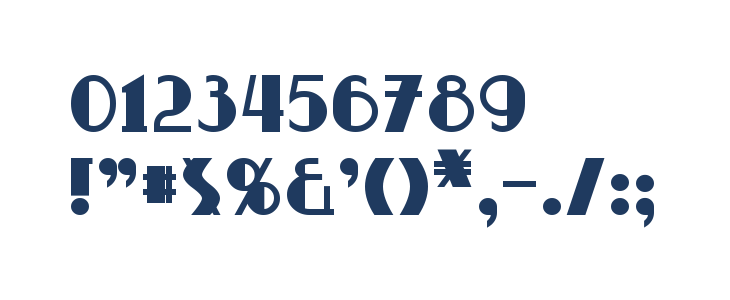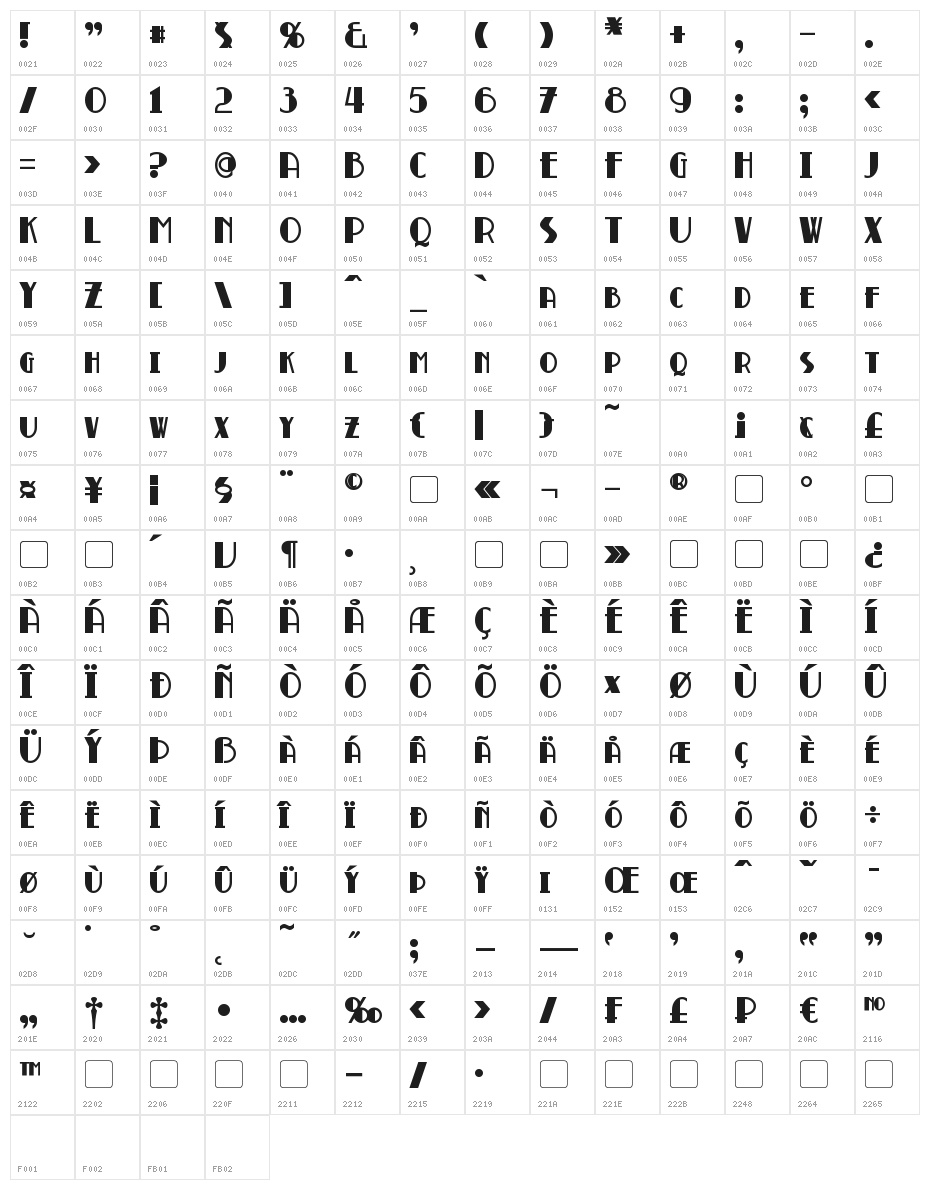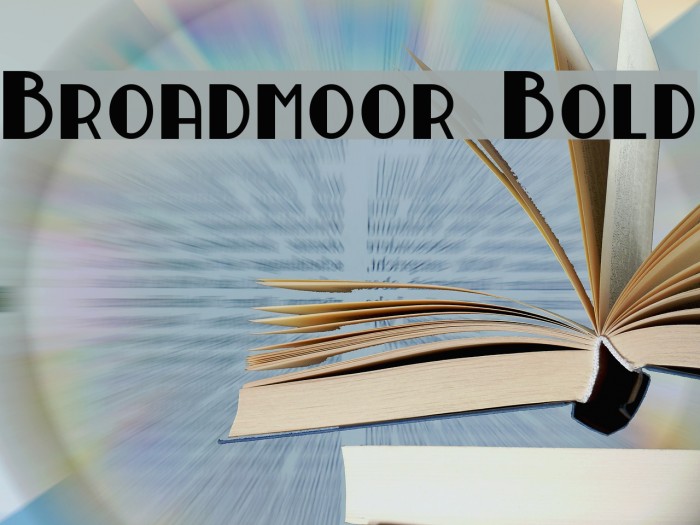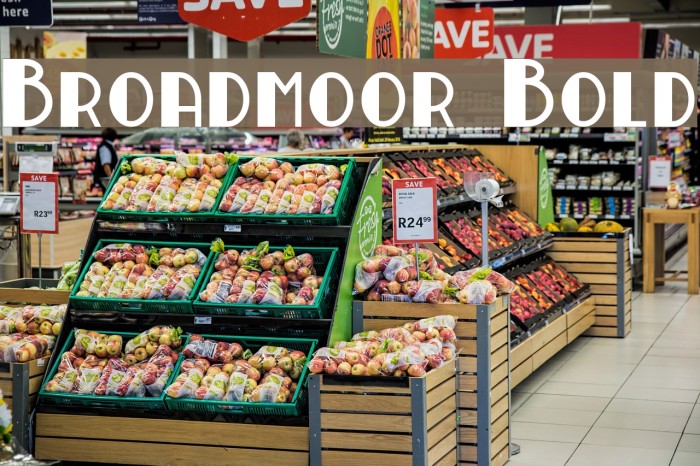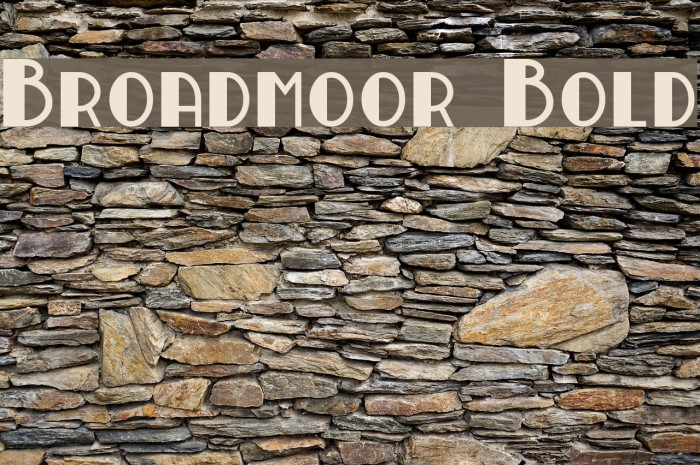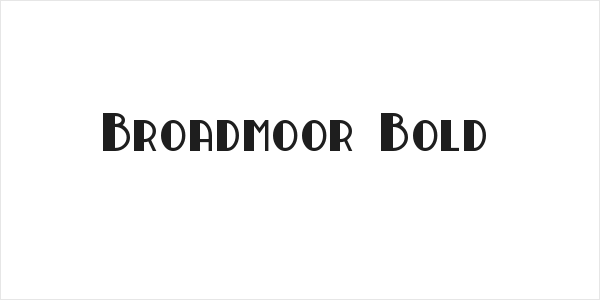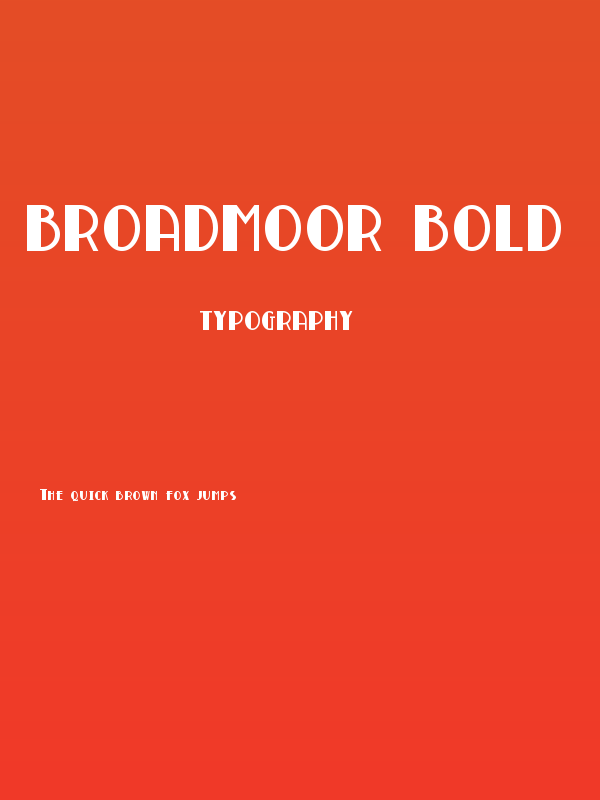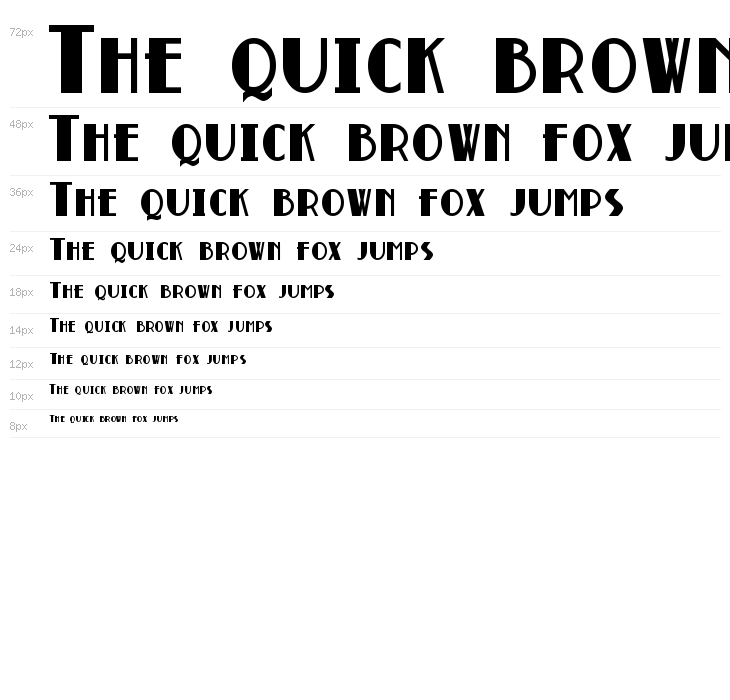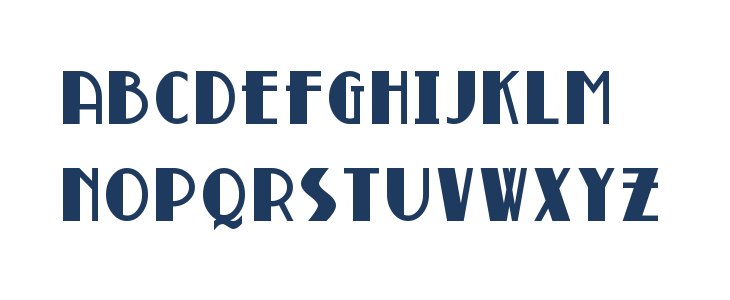
Broadmoor Bold Font
Broadmoor Bold Description
This font features a bold and striking design with a strong geometric influence. The characters are crafted with sharp angles and clean lines, giving it a modern and assertive appearance. The uppercase letters exhibit a unique blend of traditional and contemporary styles, with some characters incorporating unexpected cuts and slants that add visual interest. The numerals are equally bold, maintaining the geometric theme with a consistent weight throughout. Special characters are designed with the same attention to detail, ensuring cohesion across all elements. This font is ideal for making a statement, with its bold presence and distinctive style.